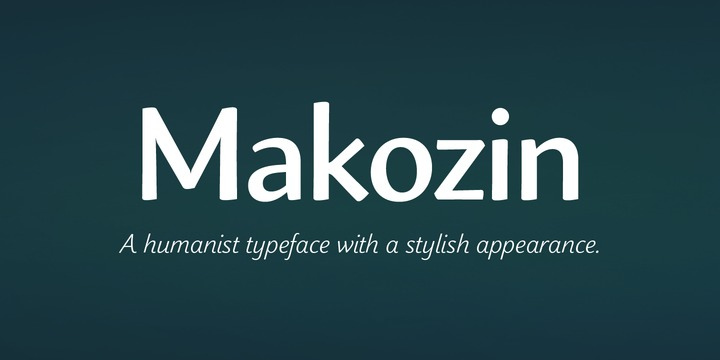
Makozin Font
Makozin Font is perfect for magazine publication design, editorial content branding, publishing house materials, literary journal layouts, news media communications, periodical subscription promotions, content creation platforms, and digital magazine interfaces where editorial excellence and publishing sophistication are emphasized.
What makes Makozin Font so exciting is its editorial ability to capture the essence of quality journalism and magazine publishing through refined letterforms that embody the professionalism and readability standards of premium periodicals while maintaining exceptional clarity for both print and digital content. The journalistic character design reflects the authority and editorial integrity that defines trusted magazine publishing and quality content creation.
The Makozin Font family includes thin, light, regular, medium, bold, and black weights, with condensed variants and editorial-inspired ornamental elements that provide comprehensive tools for creating authentic publishing branding and magazine design systems.
The font's structured character architecture and readable proportions create immediate associations with quality journalism and professional magazine production. Each letterform has been designed to convey the credibility and editorial standards that readers expect from reputable publications and trusted content sources.
Makozin Font excels in creating authoritative editorial communications that engage readers and establish publishing credibility. The typeface's professional character makes it ideal for magazine publishers, digital content platforms, and media companies targeting audiences seeking quality editorial content and reliable information sources.
From fashion magazines to news publications, this font brings editorial authenticity that appeals to readers who appreciate professional journalism and quality content creation. The versatile design maintains its publishing character across both traditional print magazines and modern digital content platforms.